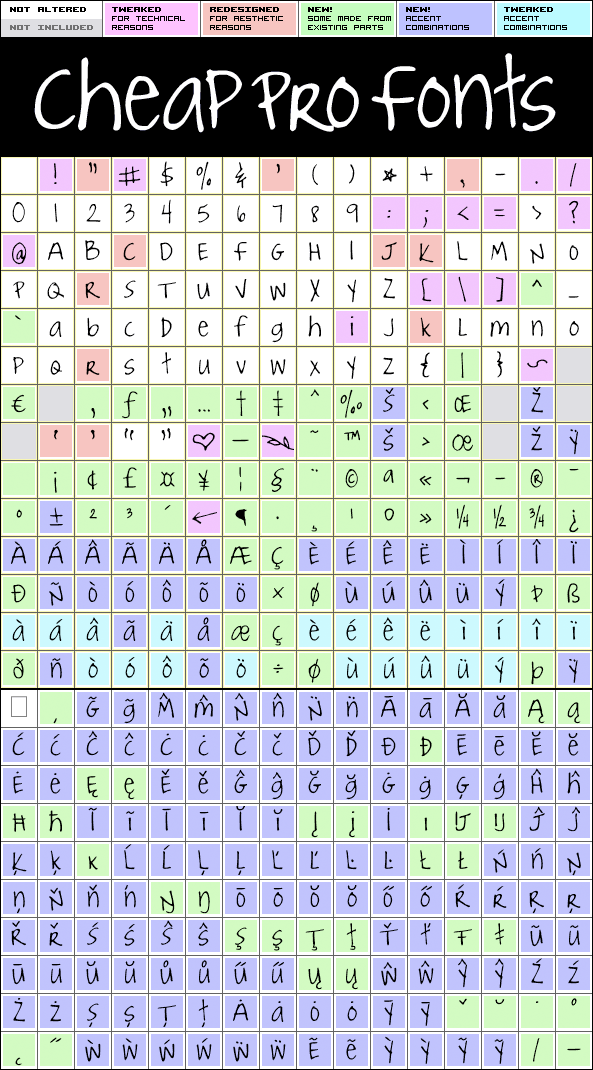
Joyful Juliana Pro
Joyful Juliana Pro by Kimberly Geswein
Kimberly Geswein
(119 in original)
554 class kernpairs
= 8976 kerning pairs
(none in original)
Another font reworked by request. This time it's Kimberly Gesweins own handwriting, named for a sweet California friend of hers :)
Kimberly has spotted the original free version of this font in use in the far outskirts of China, and now - with the expanded language support - this Pro version can also be used in more remote parts of the western world ;)
Joyful Juliana Pro is a professionally reworked font that contains an extended character set for setting text in 65 languages requiring more than the basic A-Z!